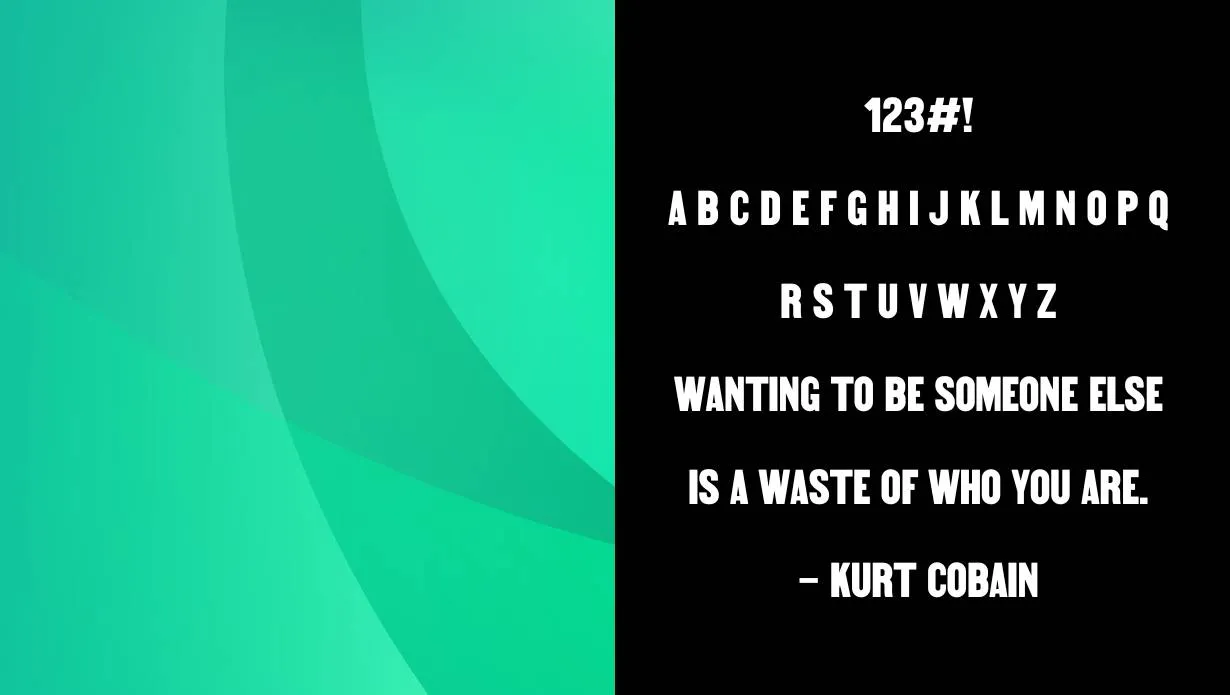
King Sans Font is a sans-serif typeface created by Cody Curley. It was released on September 27, 2016. The font family includes 4 weights: light, regular, bold, and black. The light weight has 256 glyphs, while the other 3 weights have 511 glyphs each. The black weight includes small caps.